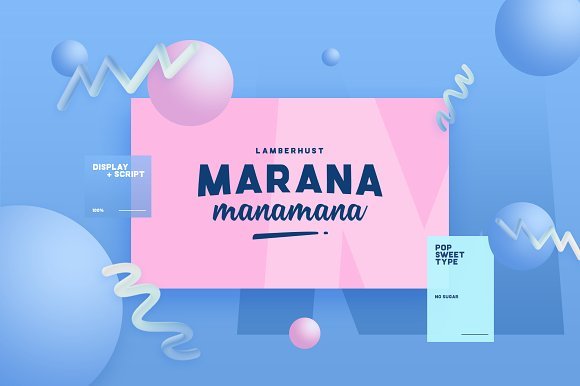
Marana Font Family
Introducing Marana Font Family! Marana designed by TyfoMono™, this is a premium font, are sold on creativemarket, but it was great, it is free today for download. About this font family Marana is a combination typeface between Bold & Script style. A younger brother of the original font family, Cartel Deux. It comes in 2 solid style. Marana is a perfect choice to show your pop visual content.